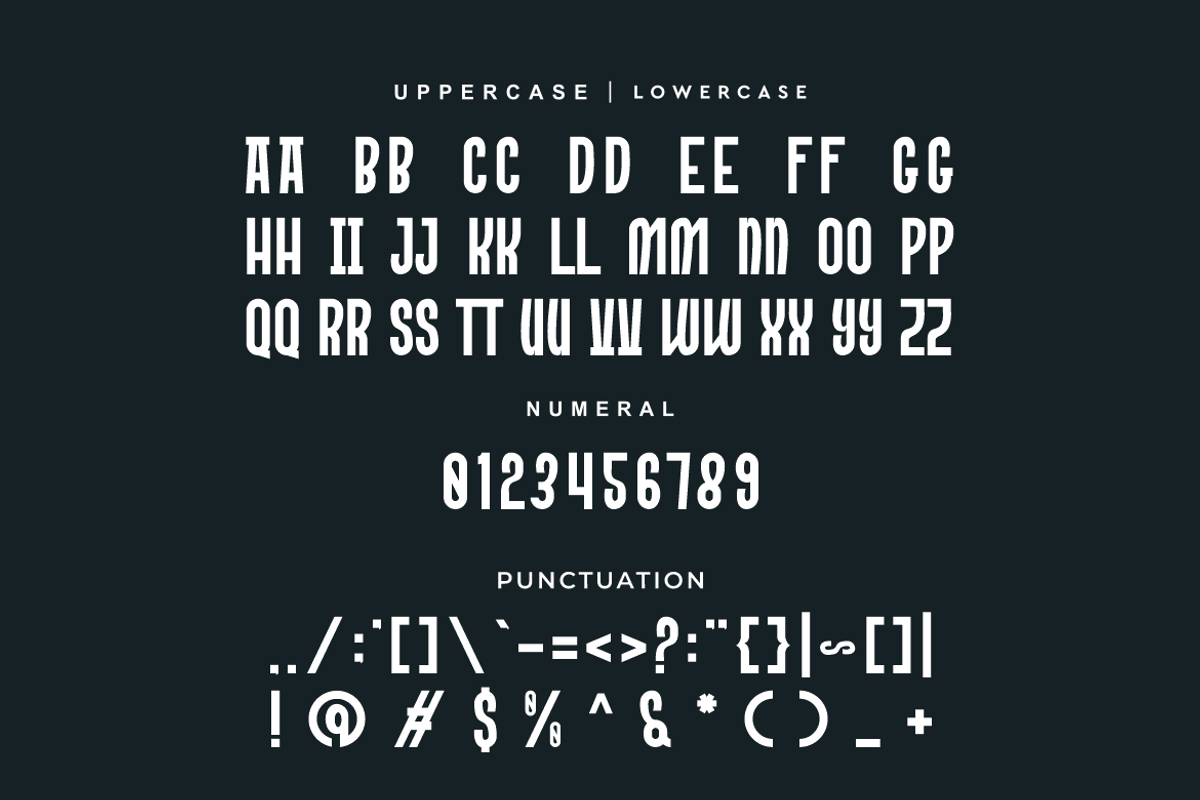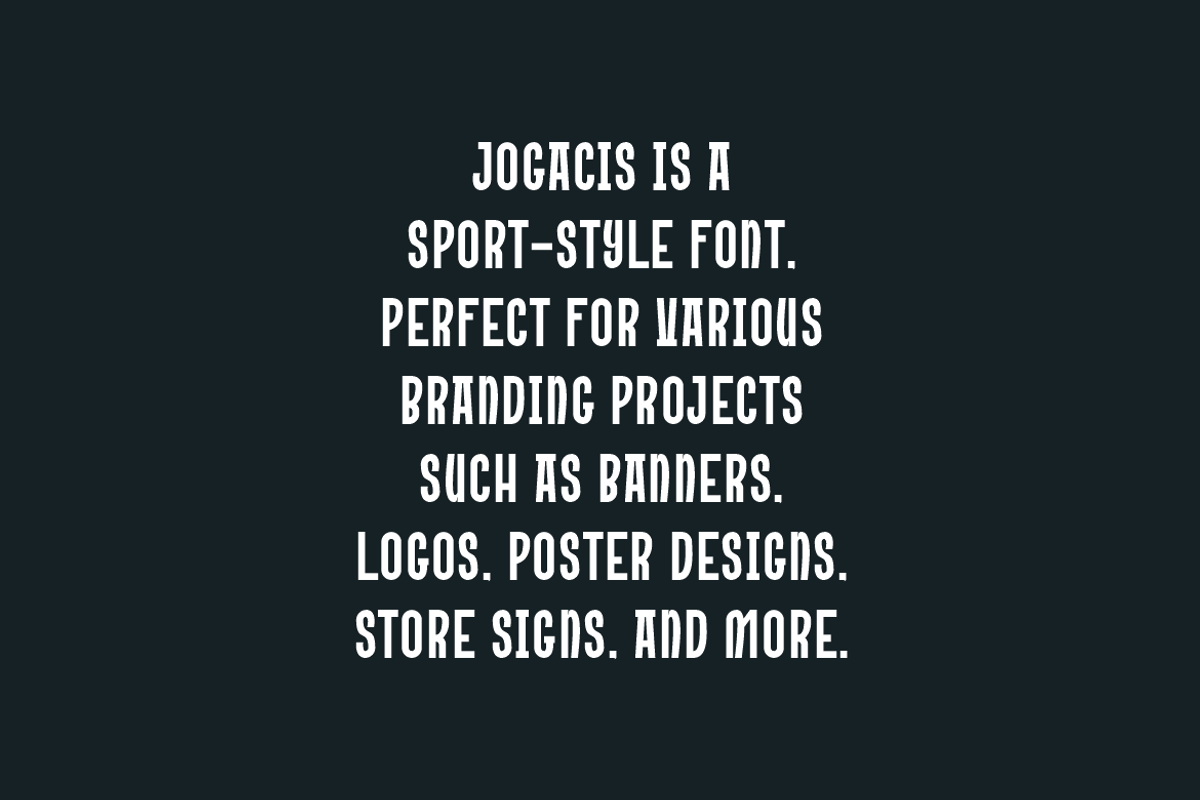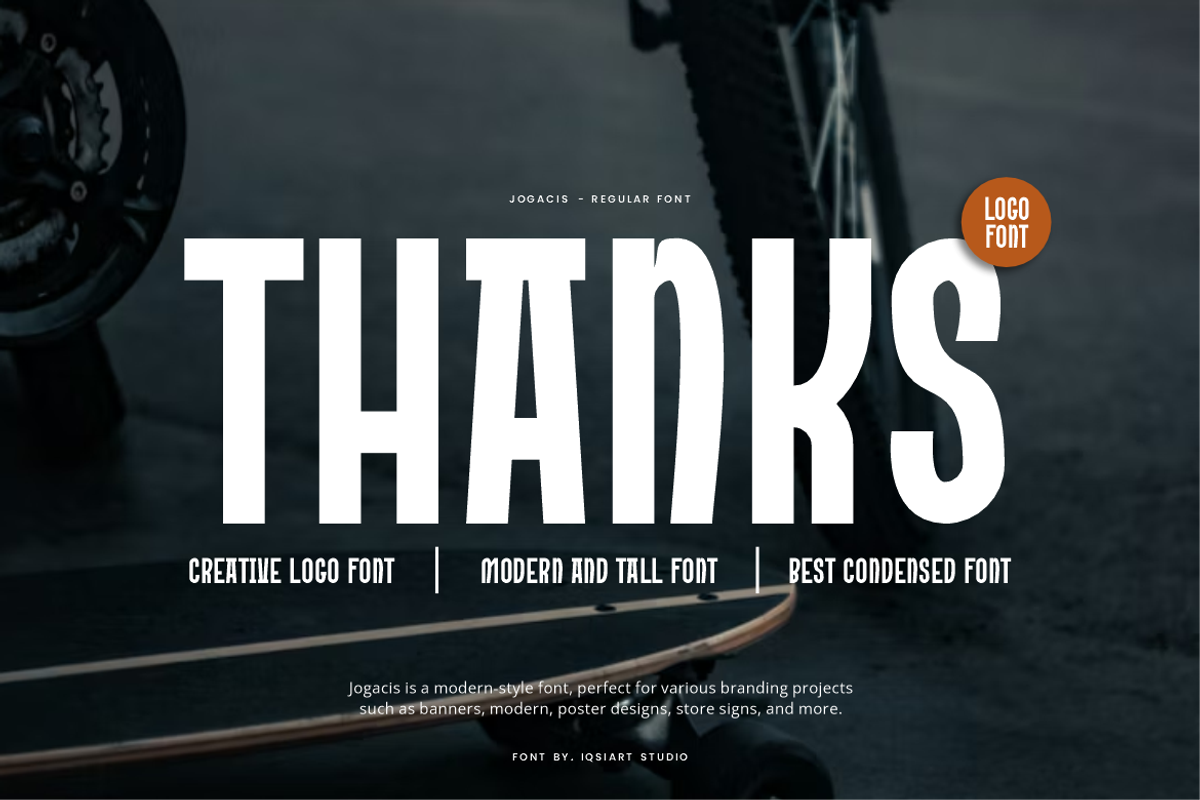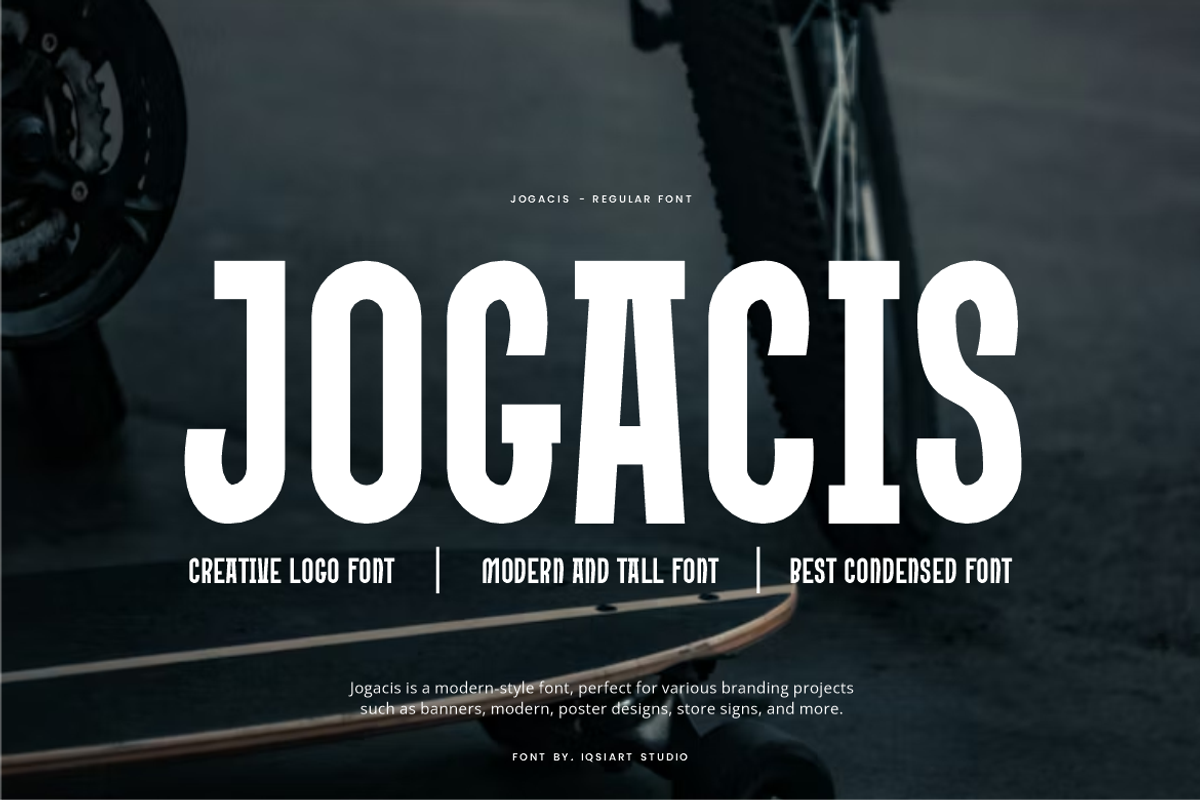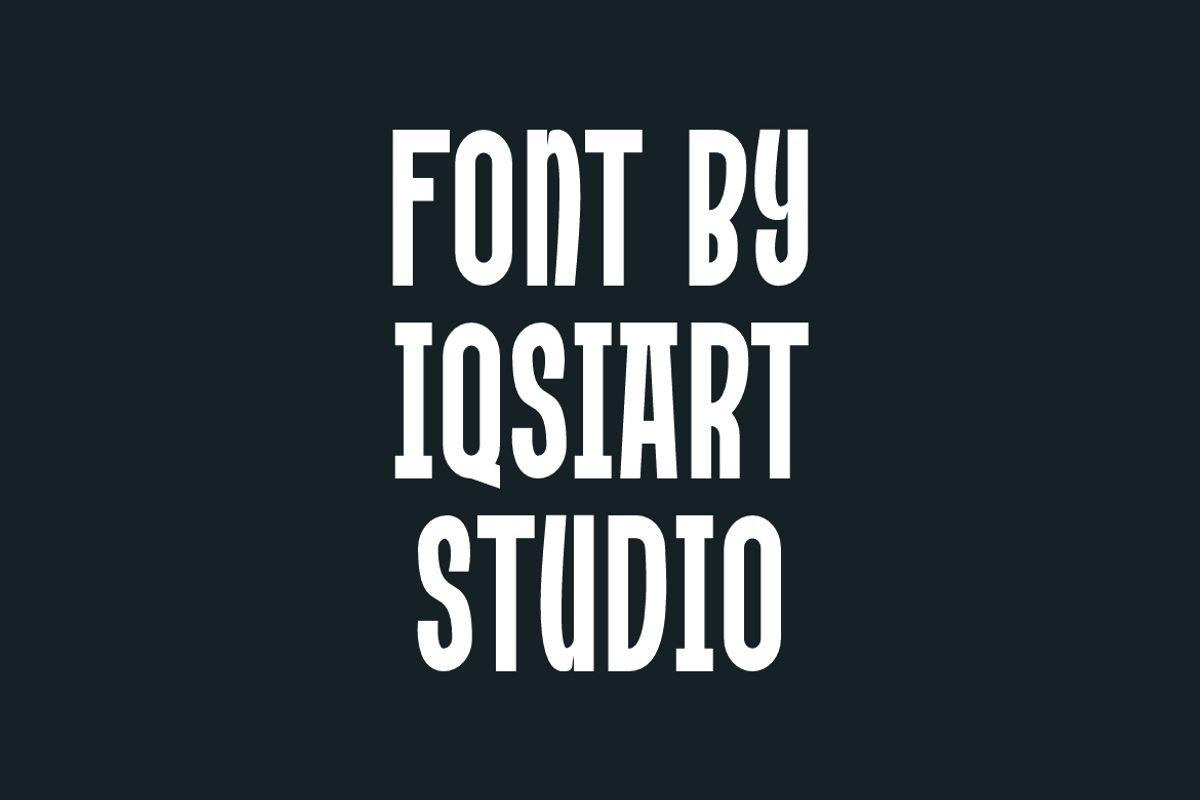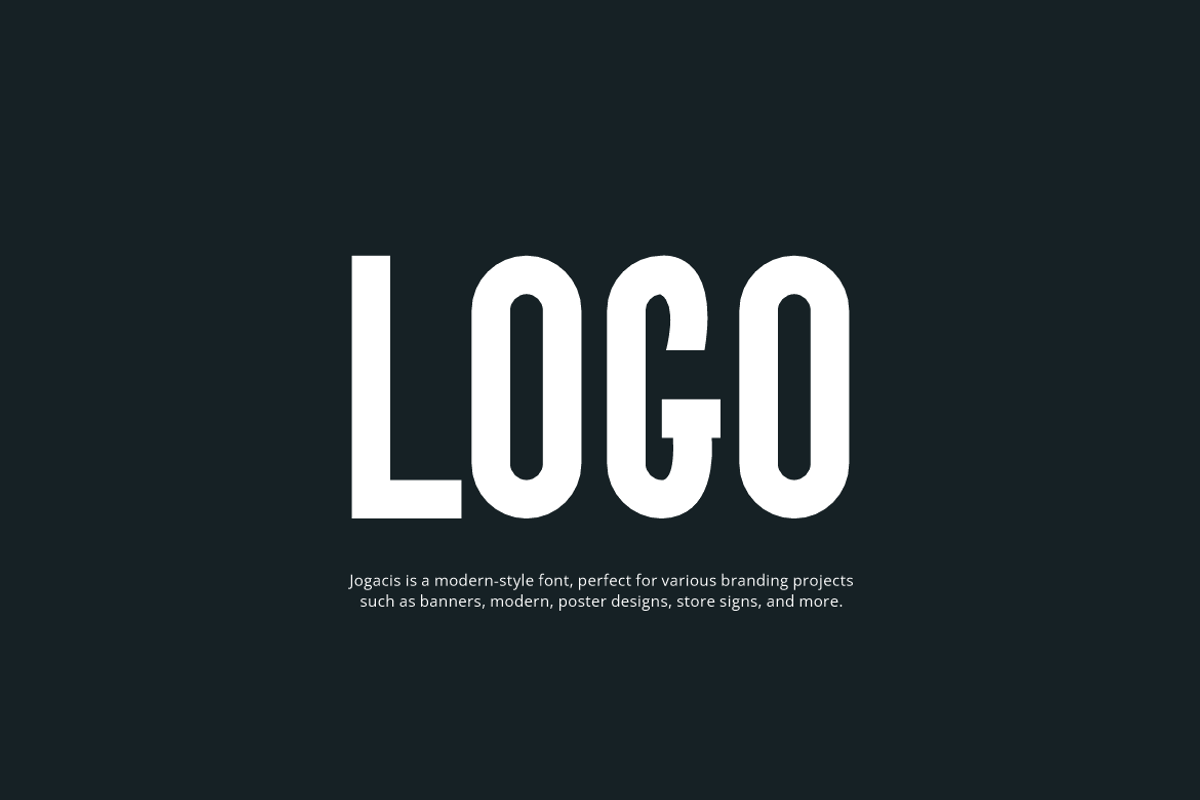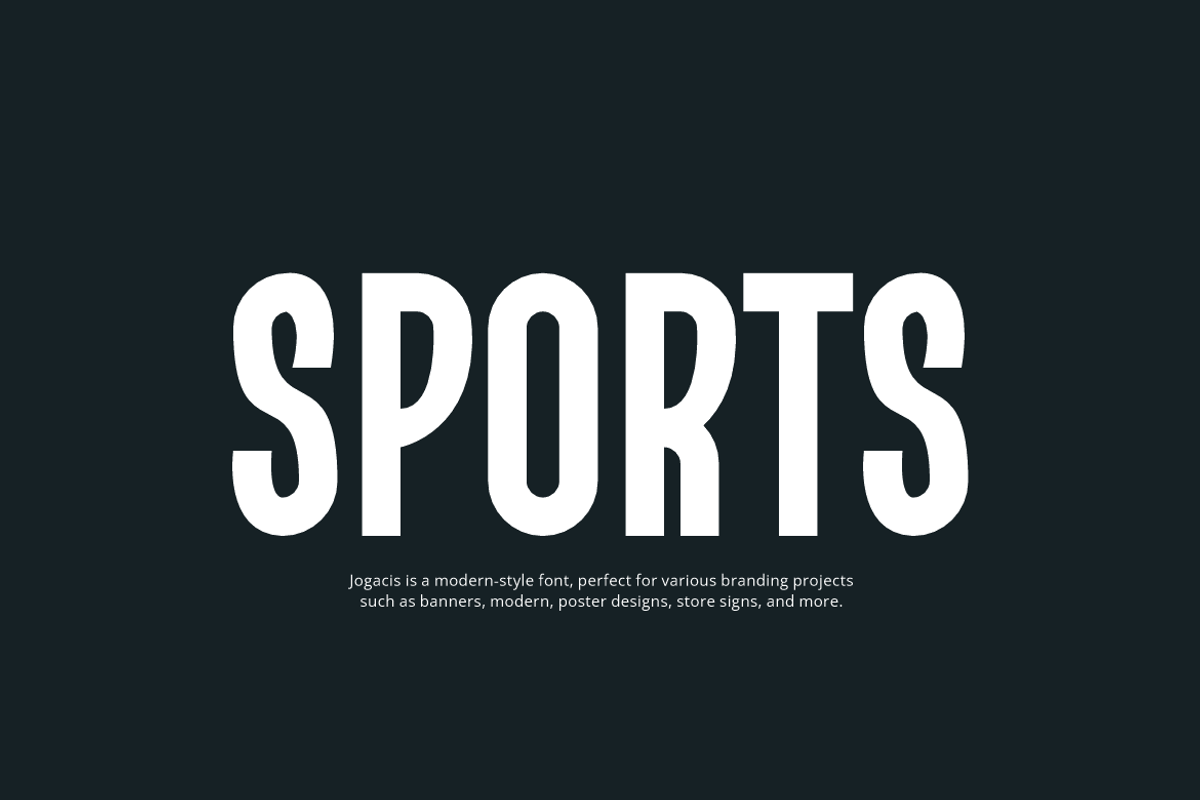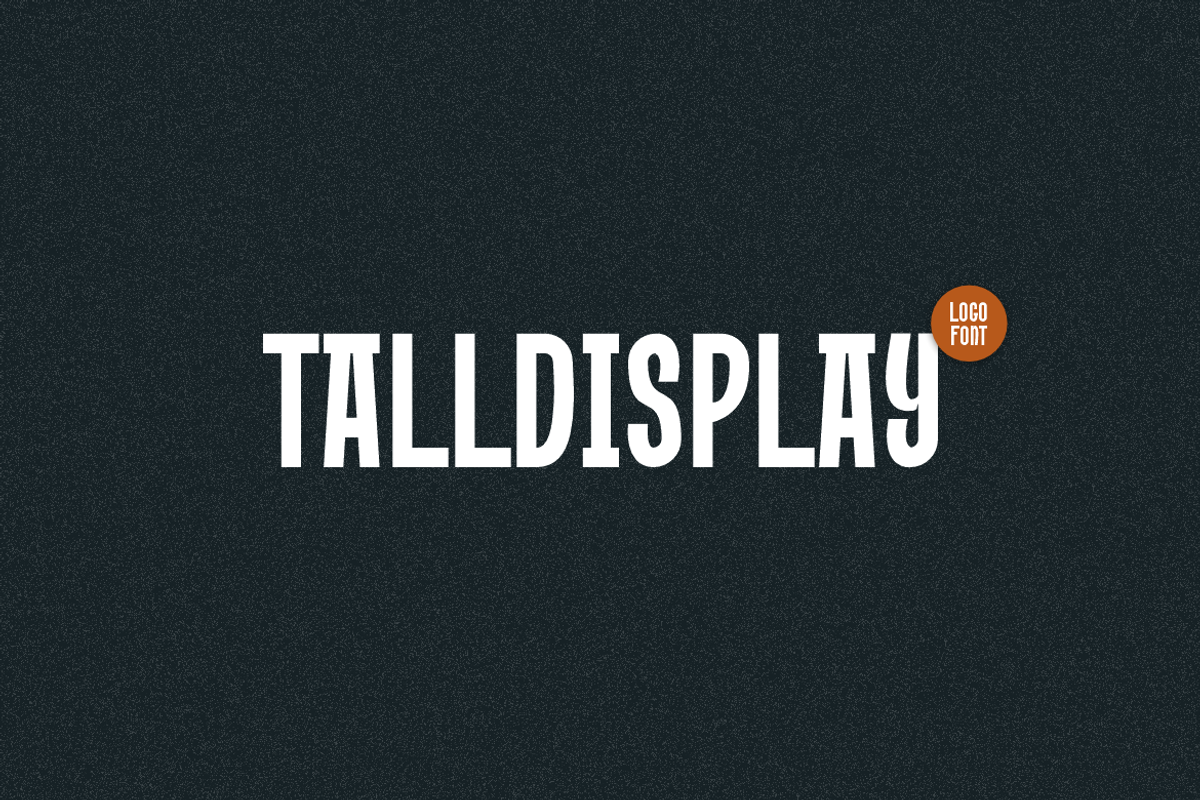
Jogacis - Creative Logo Font
Jogacis Font is a bold and authentic display typeface that suits a variety of design needs. We offer a wide range of themes and font styles — visit our profile to explore more and find the perfect style for your project.